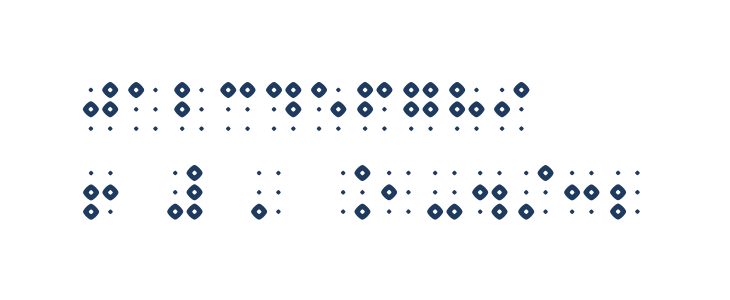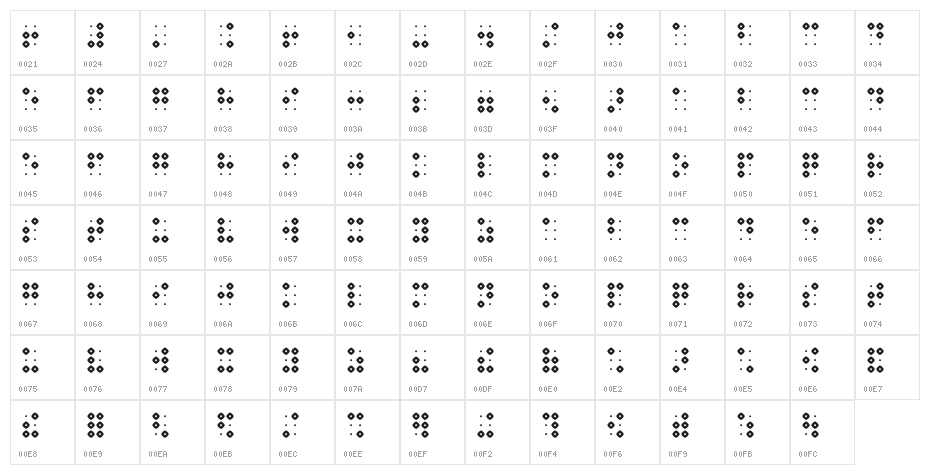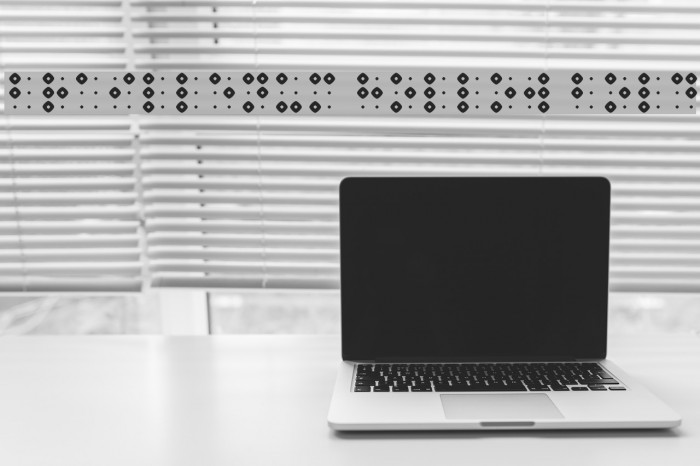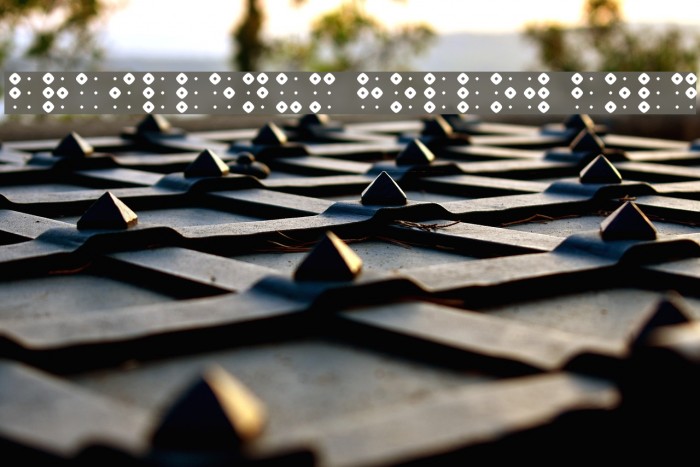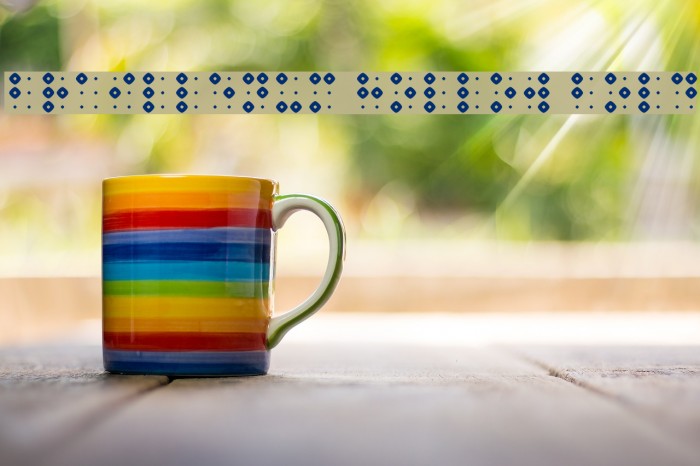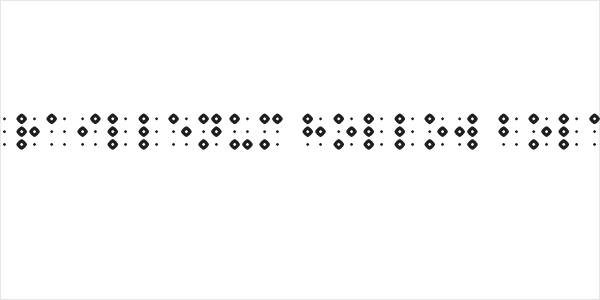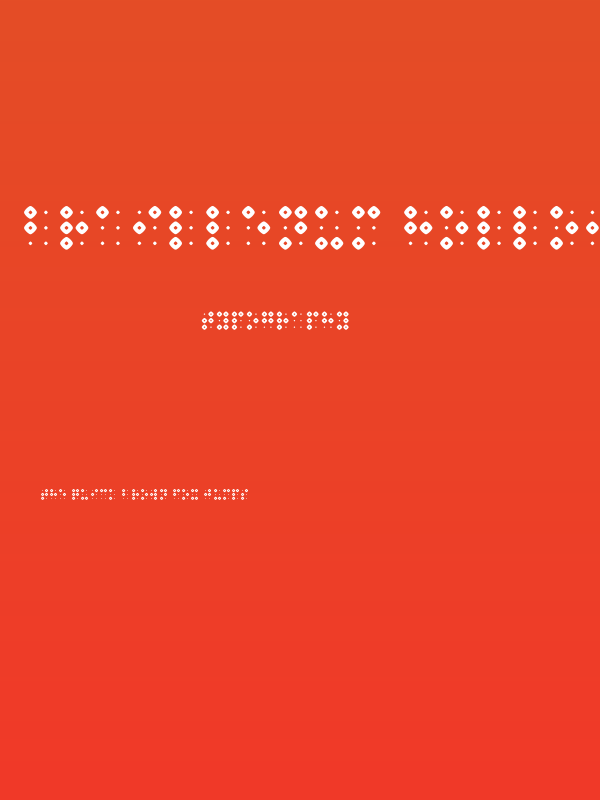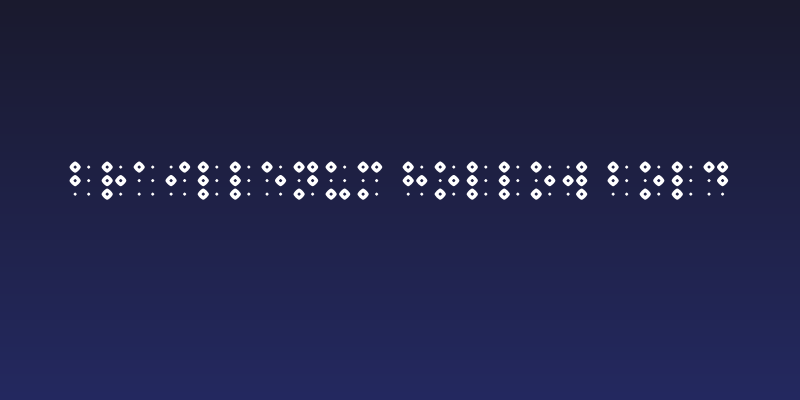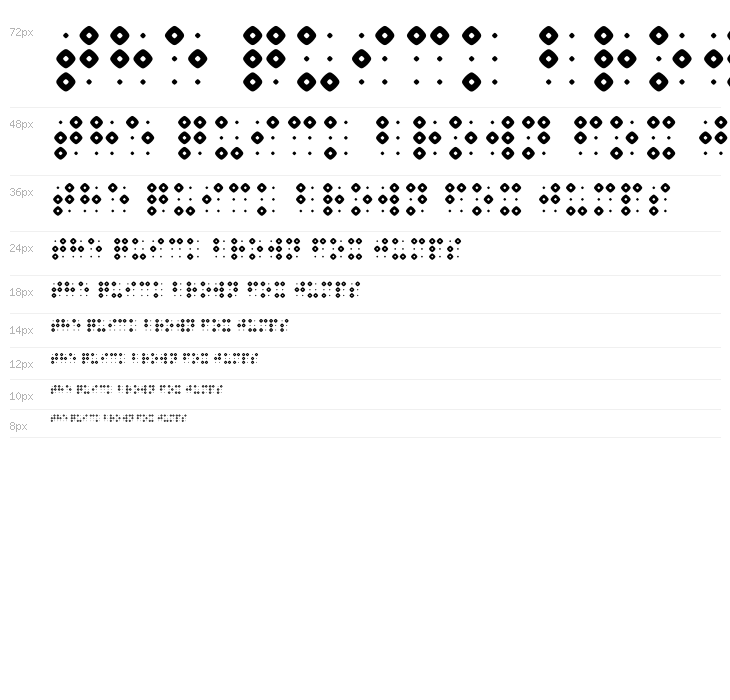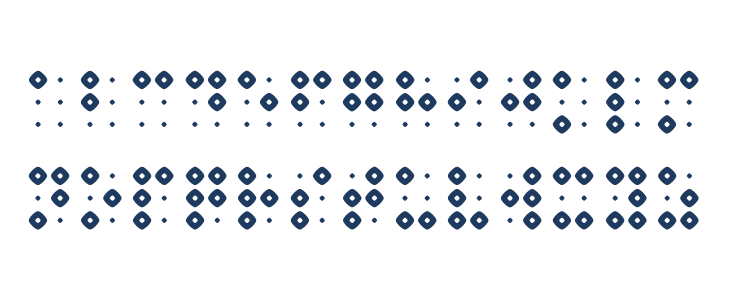
Braillenum Hollow Bold Font
Braillenum Hollow Bold Description
This font is a creative representation of the Braille system, designed with hollow circles to form each character. The boldness of the circles makes it visually striking, while the hollow design adds a unique twist. Each character is crafted with precision, maintaining the traditional Braille layout but with an artistic flair. The spacing between the dots is consistent, ensuring readability while offering an aesthetic appeal. This font bridges the gap between functionality and design, making it suitable for both educational and decorative purposes.
| Use Case | Logos, Educational materials, Decorative purposes |
| Proposed Projects | Ideal for educational materials, accessibility awareness campaigns, and creative design projects that require a Braille-inspired aesthetic. |